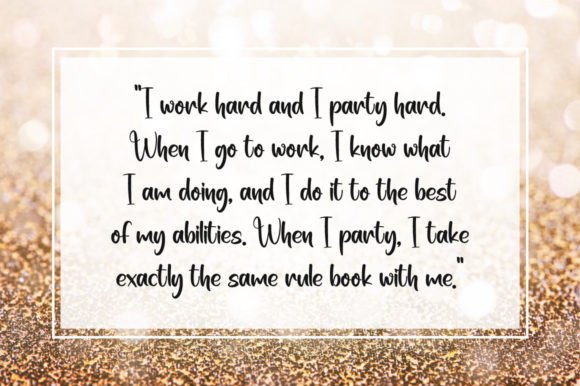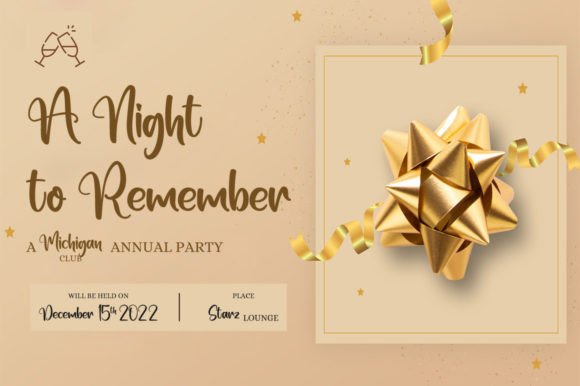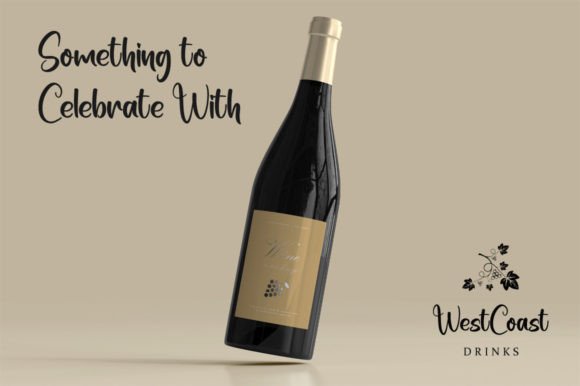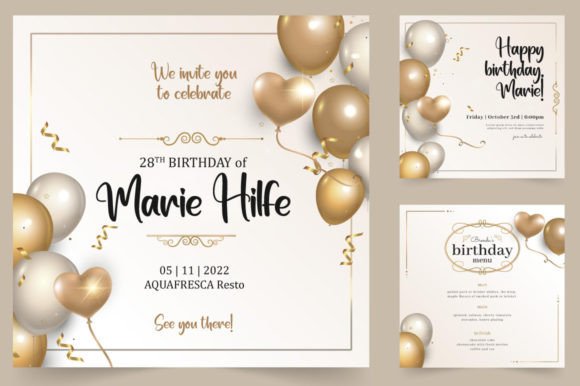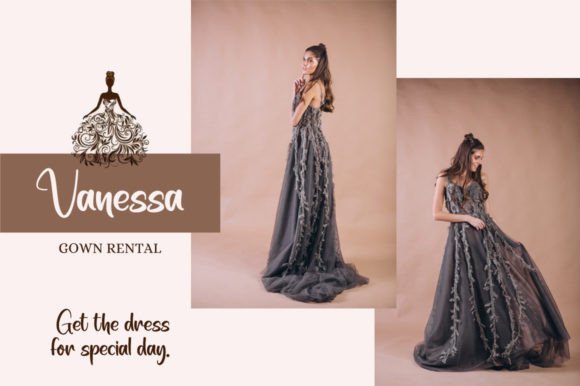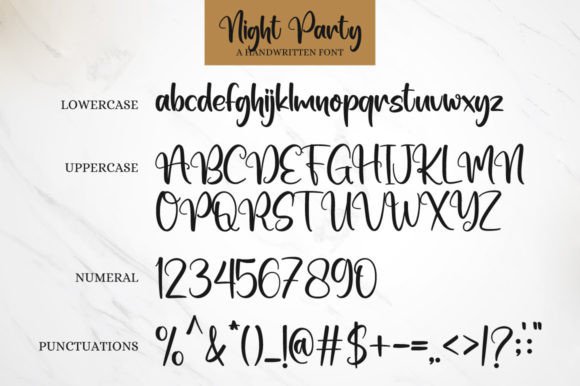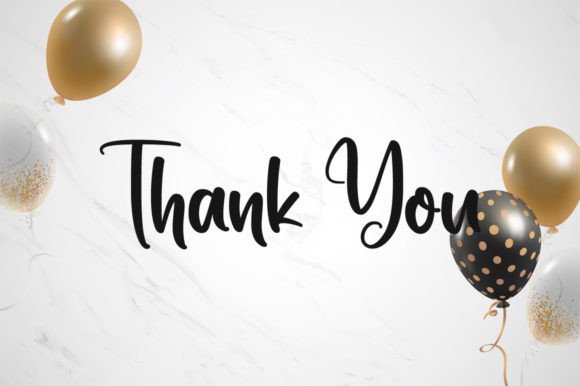
Night Party Font
About Night Party Font
Night Party is a fun and smart-looking handwritten font. It looks ravishing on invitations, thank you cards, quotes, greeting cards, logos, business cards, and every other design which needs a customized touch.